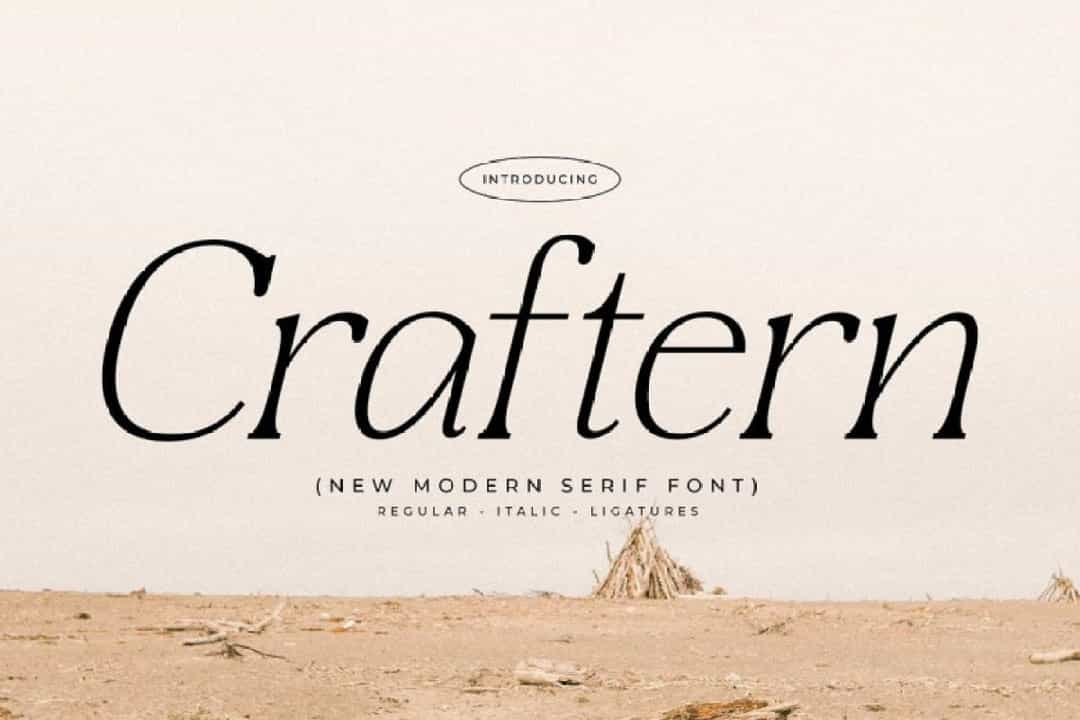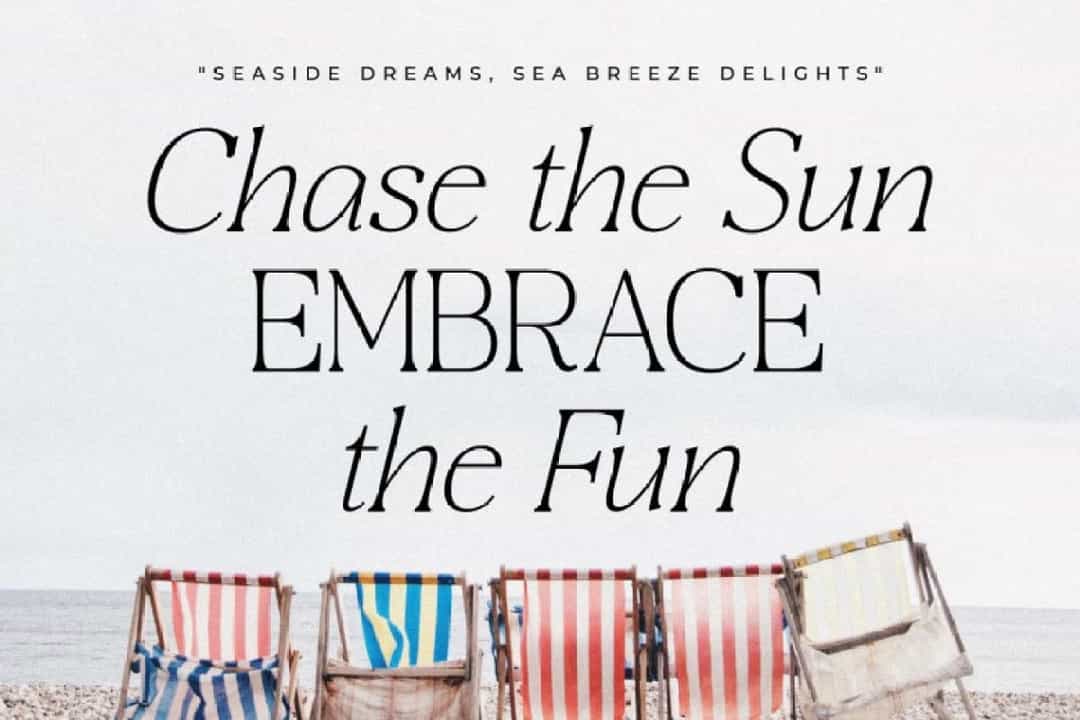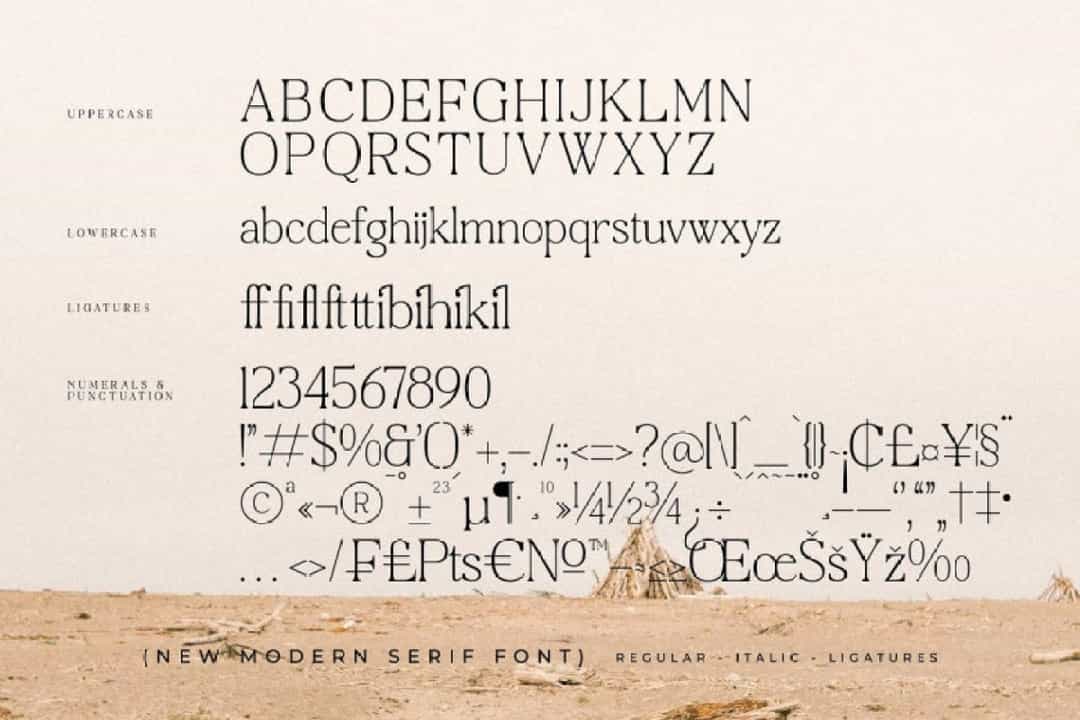
Craftern is an elegant yet modern serif typeface, ideal for creating luxurious logos, movie or book title design, fashion label clothing labels, magazines lettering as well as quotes. Craftern’s distinctive style and contemporary feel makes it the ideal font to use to craft elegant logos or titles as well as letters containing quotes.